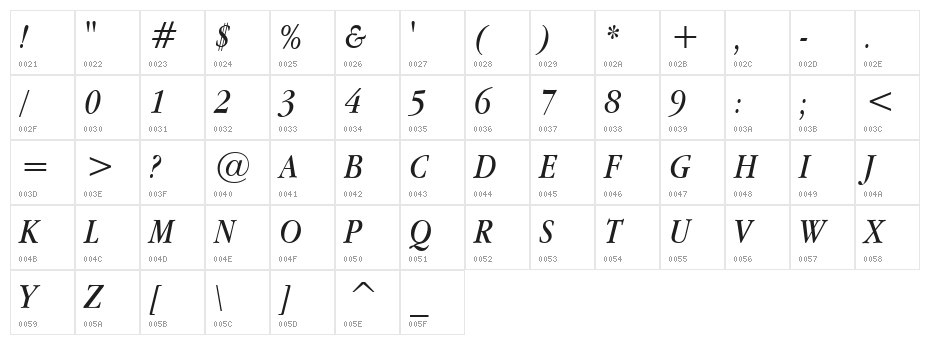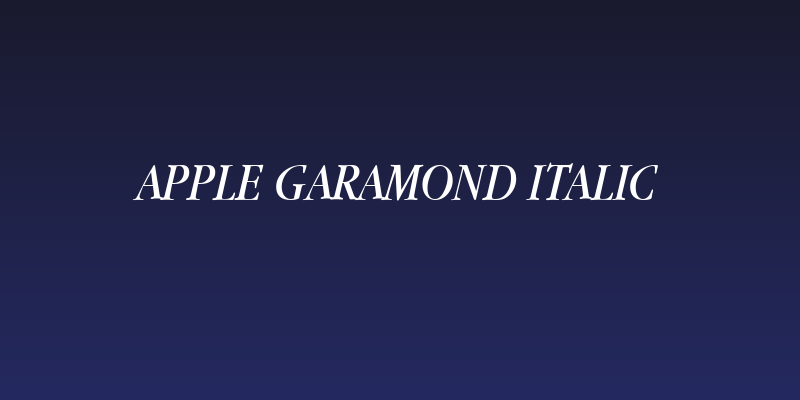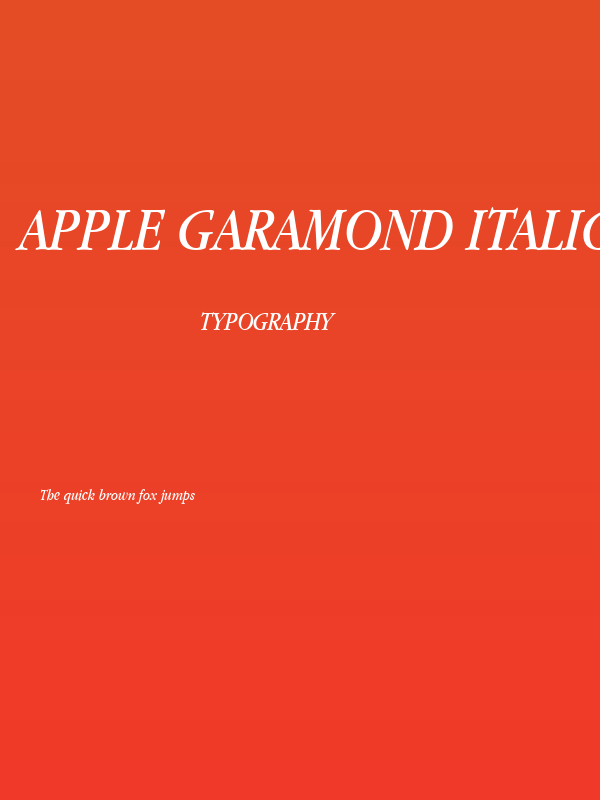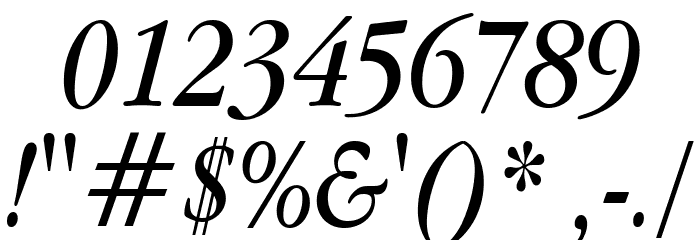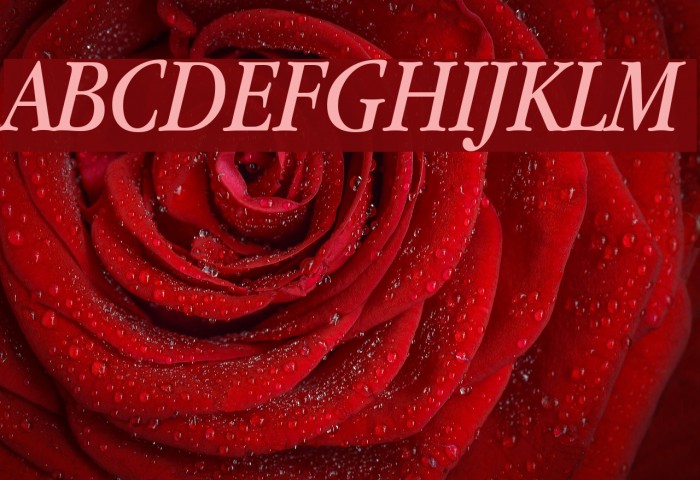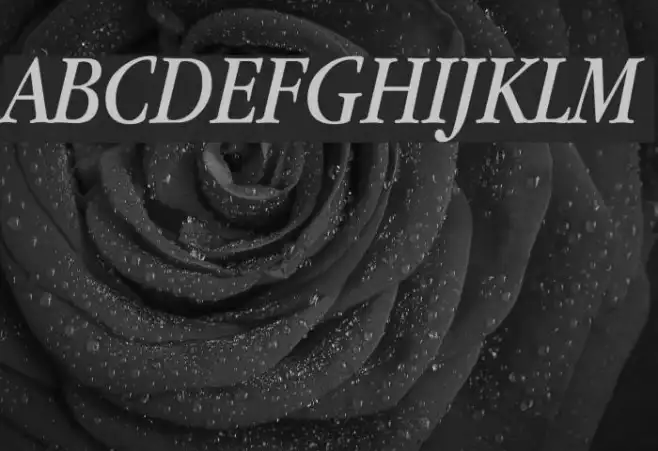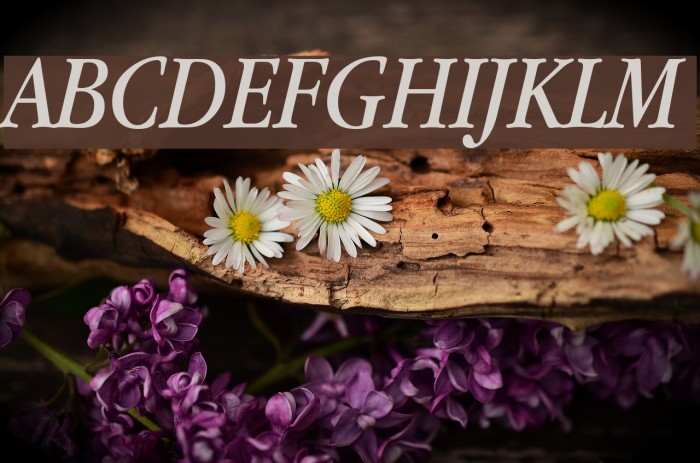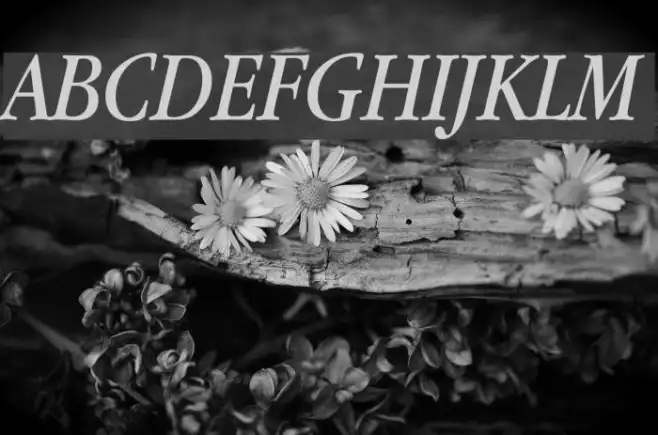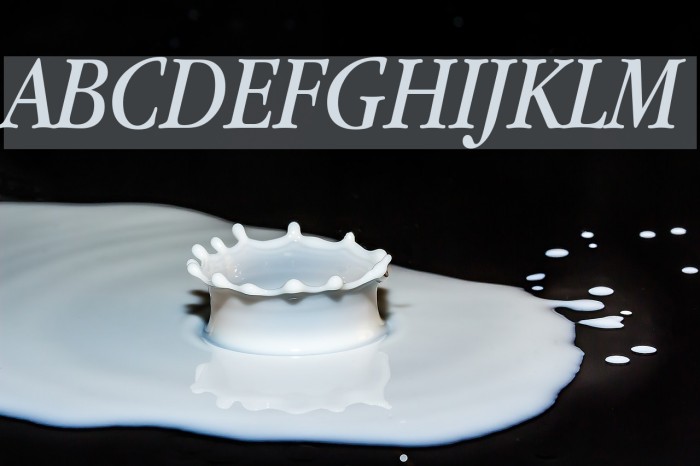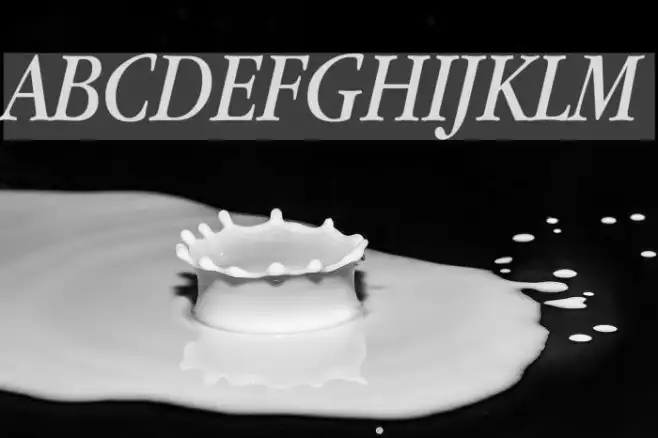
Apple Garamond Italic Font
Apple Garamond Italic Description
This font exudes elegance and sophistication with its classic italic style. The letters are gracefully slanted, providing a sense of motion and fluidity. The serifs are finely crafted, adding a touch of tradition and formality. The characters are well-proportioned, with a slight emphasis on the vertical strokes, enhancing readability. The numerals and special characters maintain the same elegant style, ensuring consistency across all text elements. This font is perfect for projects that require a refined and timeless aesthetic.
| Overall Style | Classic |
| Use Case | Headlines, Body text, Logos |
| Proposed Projects | Ideal for luxury branding, formal invitations, editorial design, and high-end product packaging. |